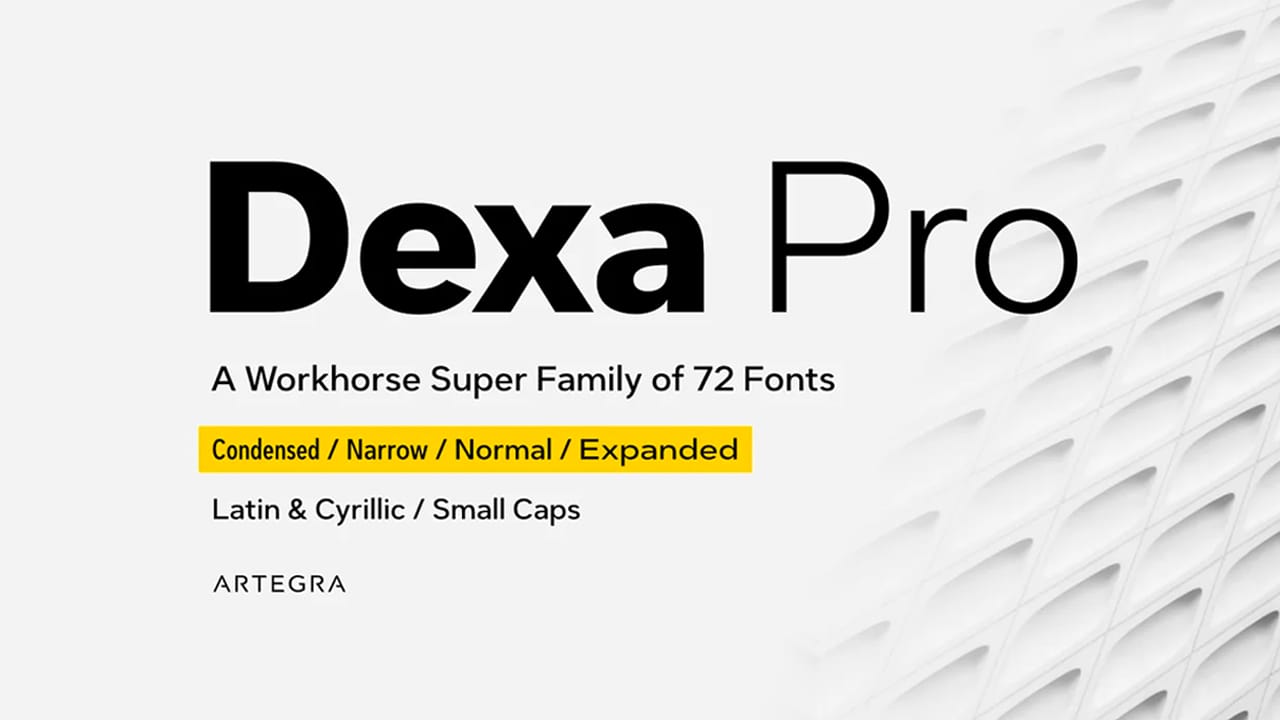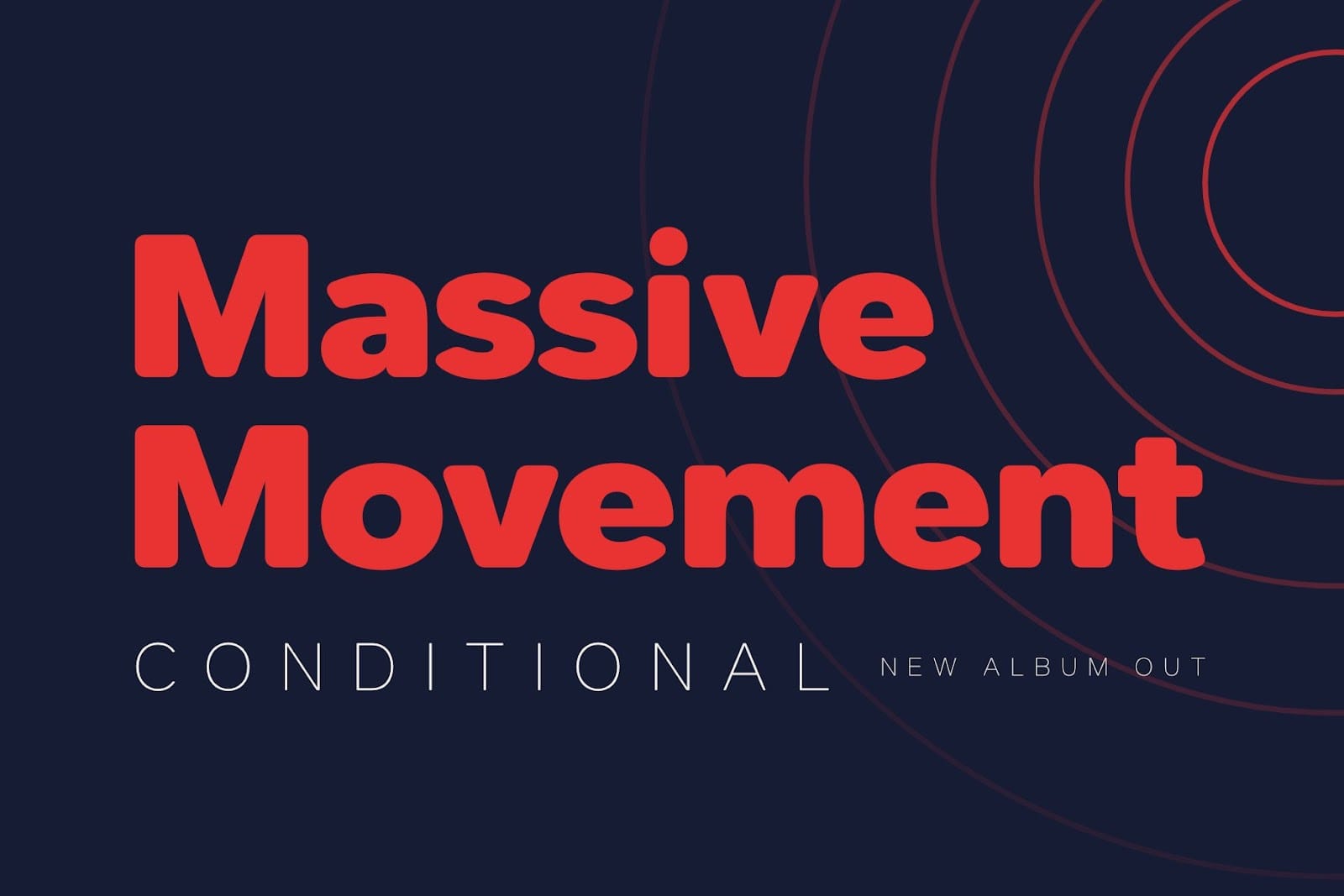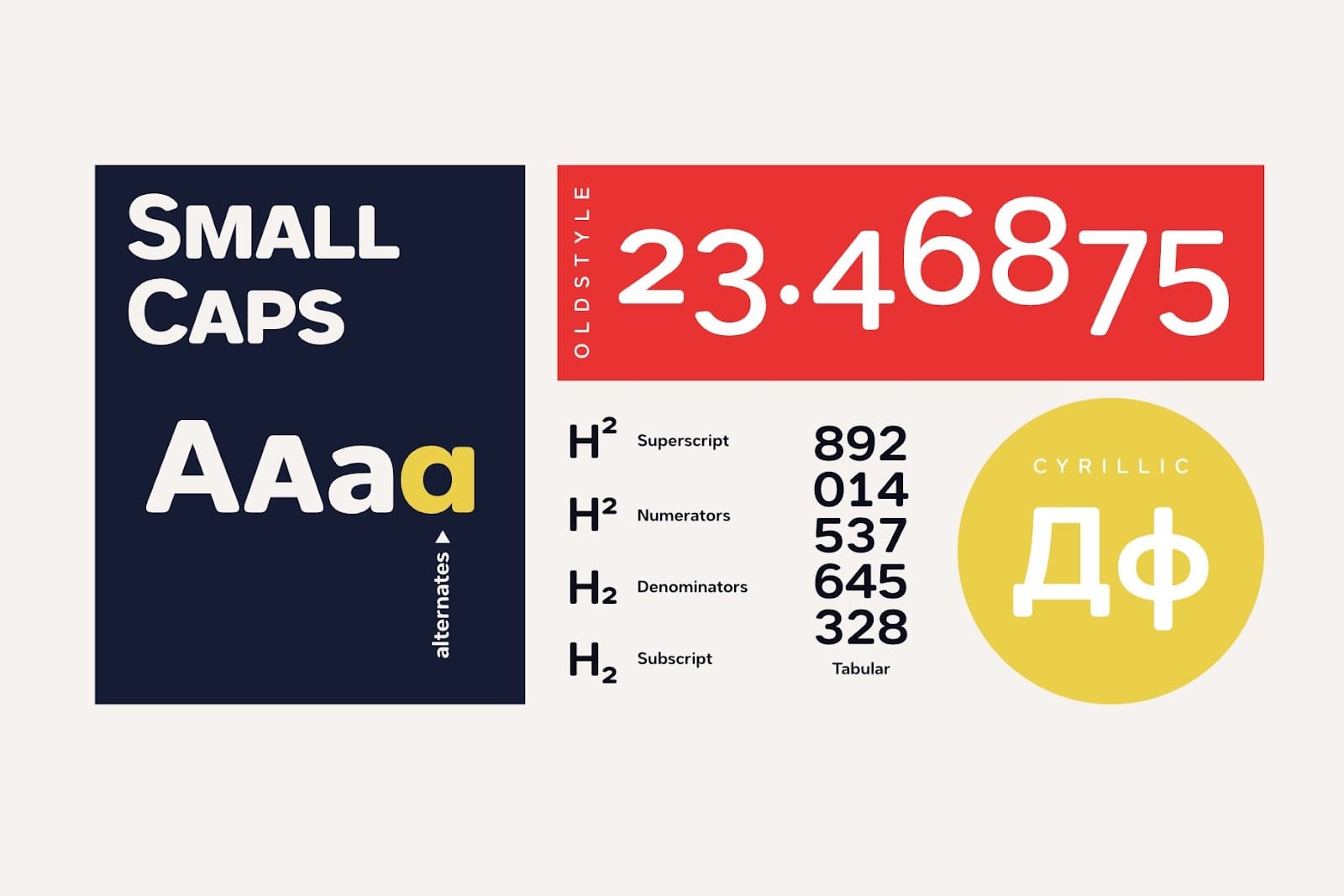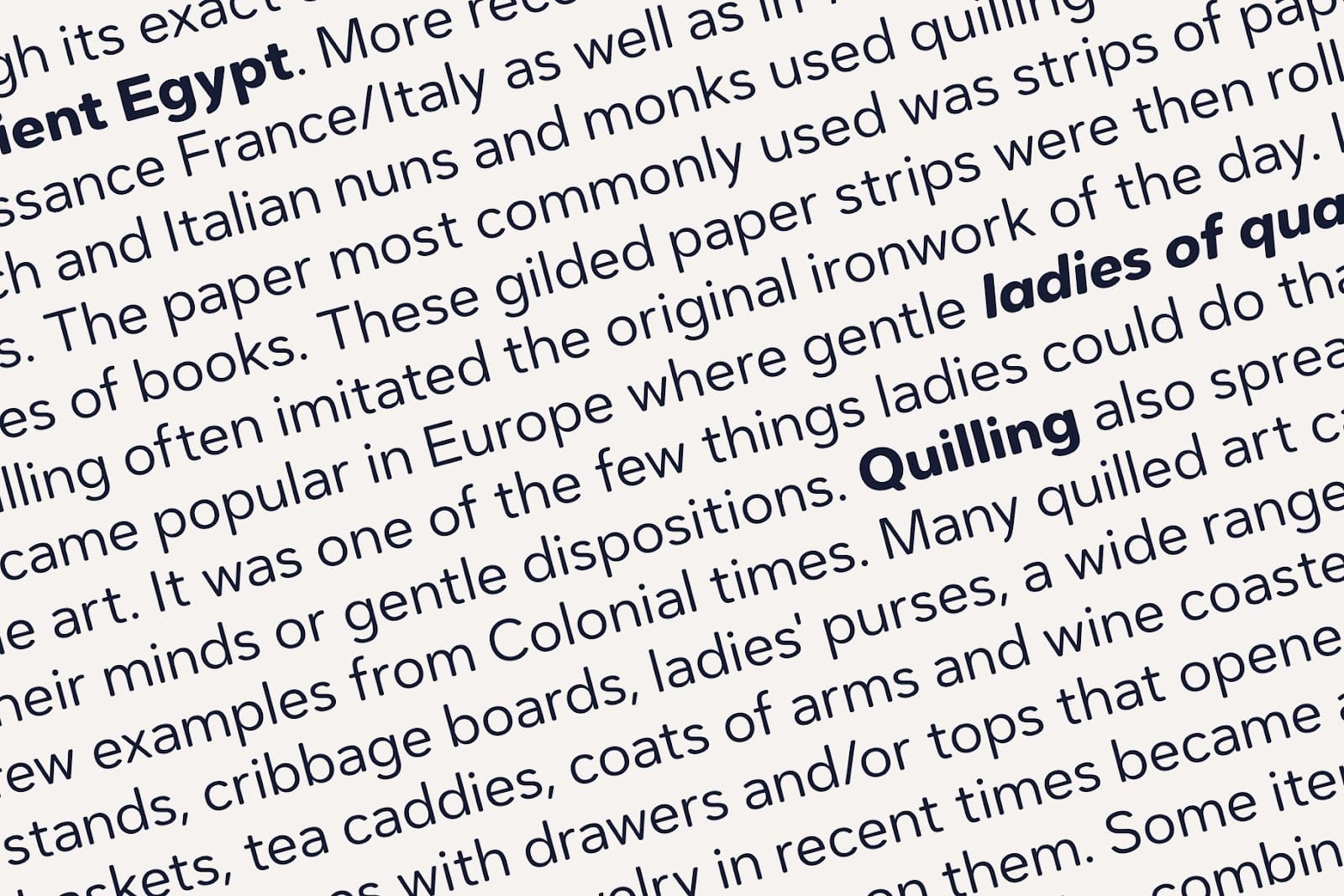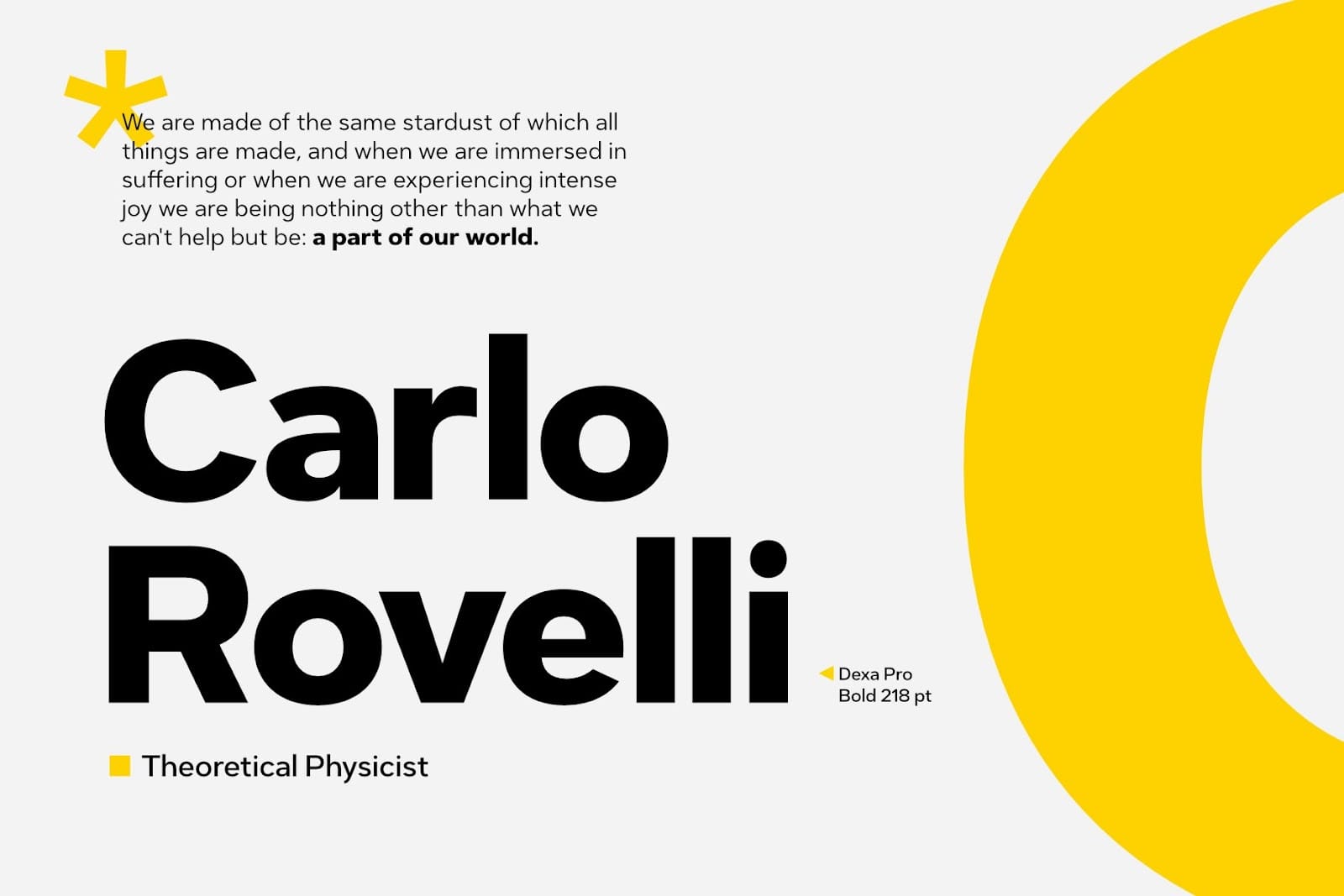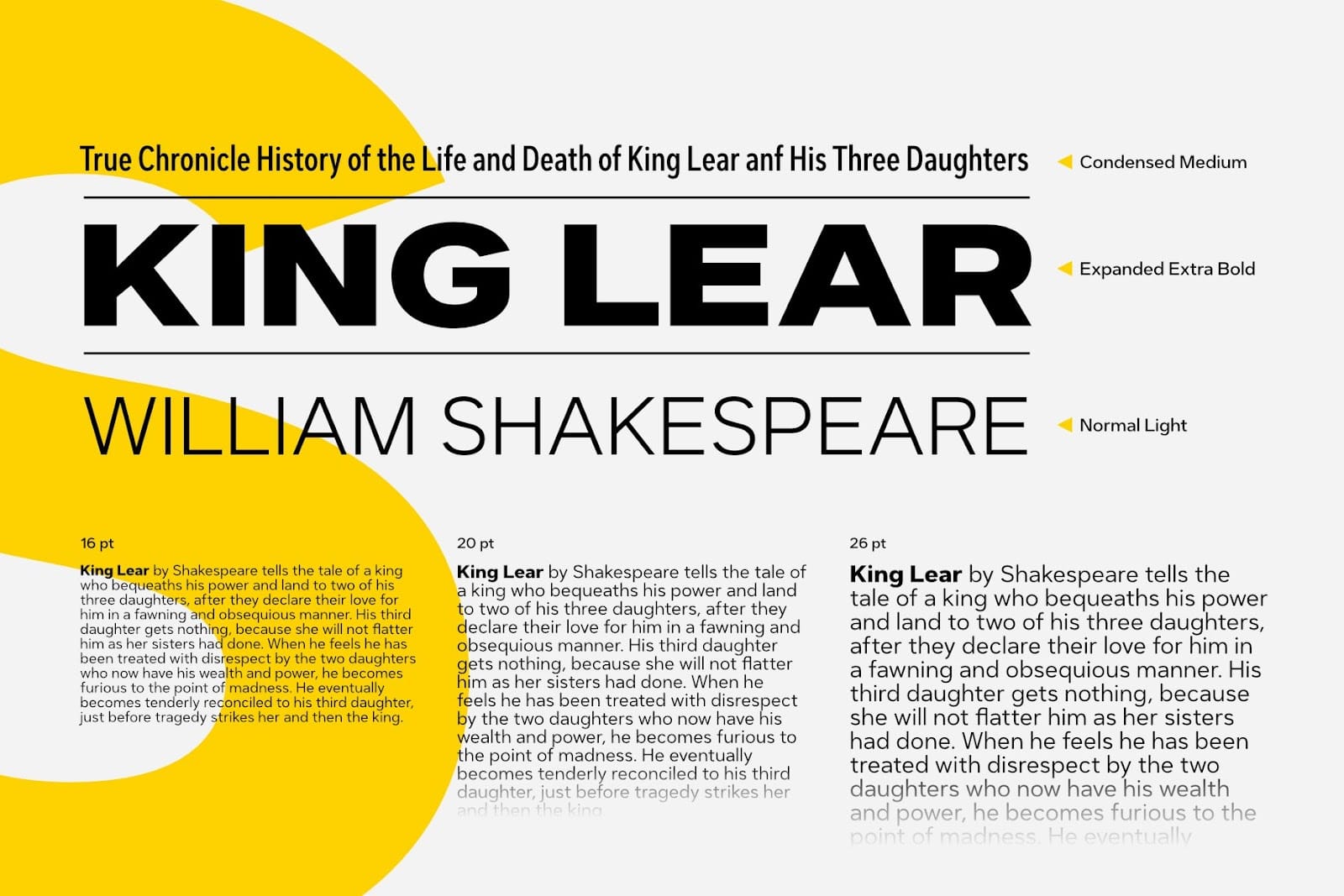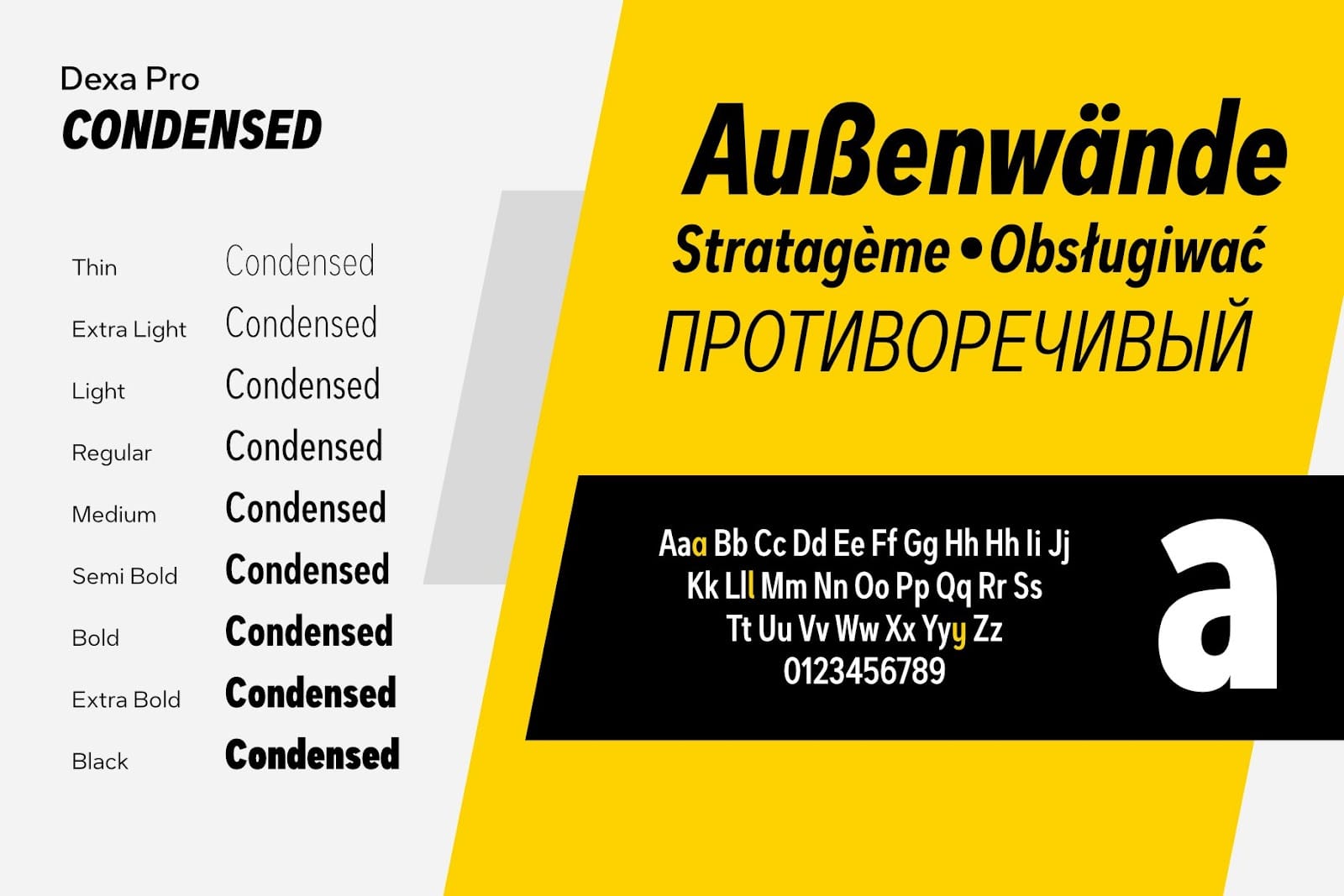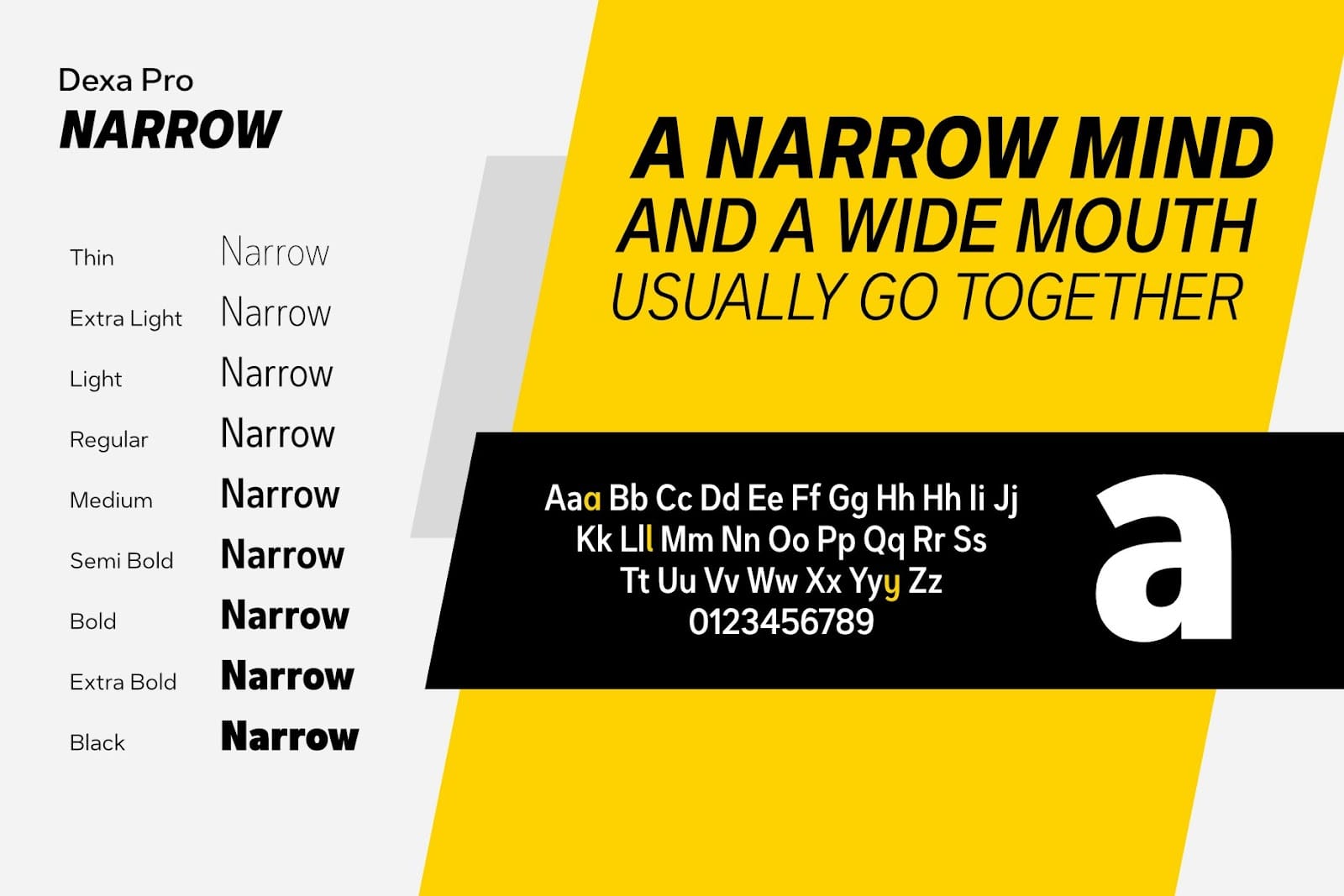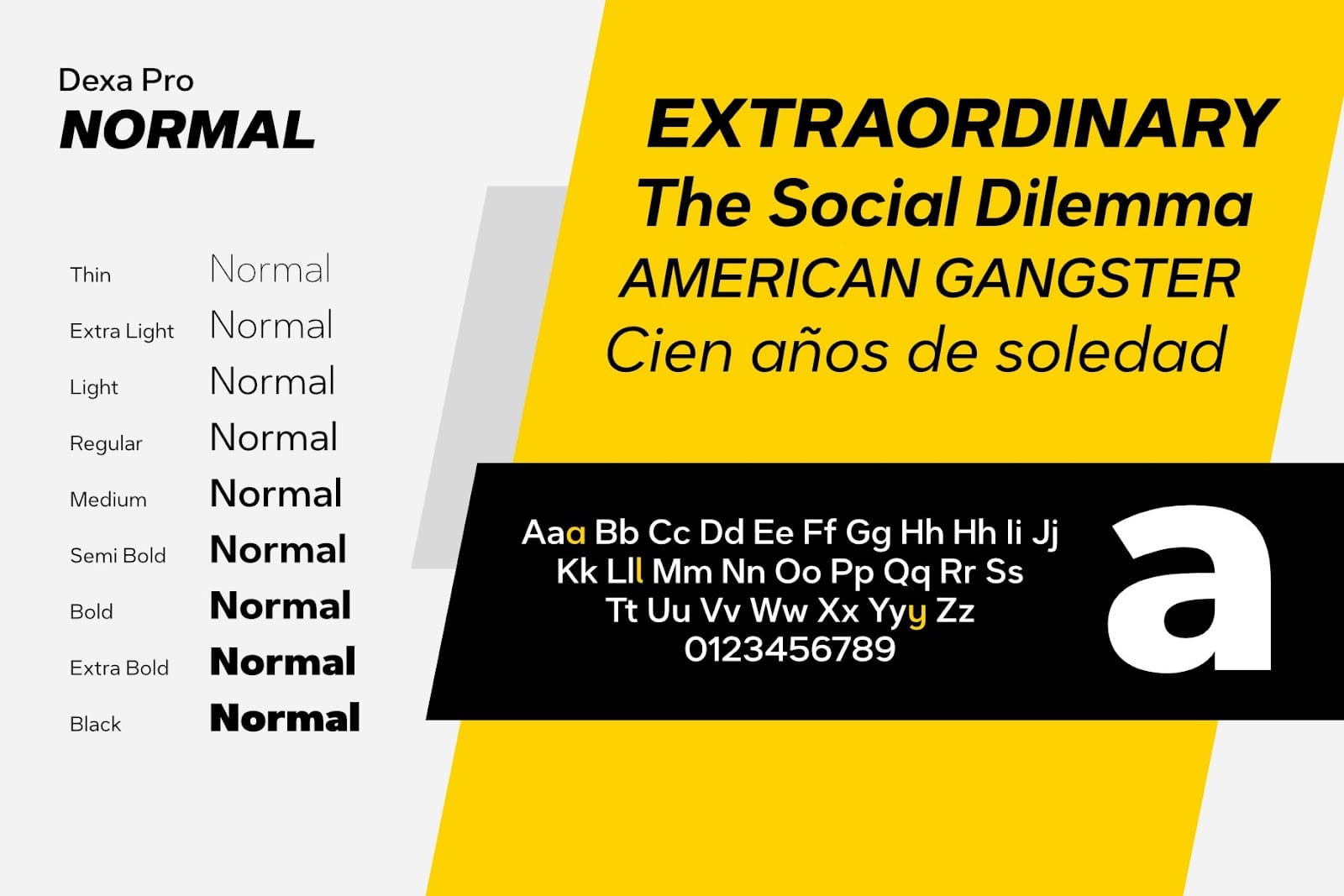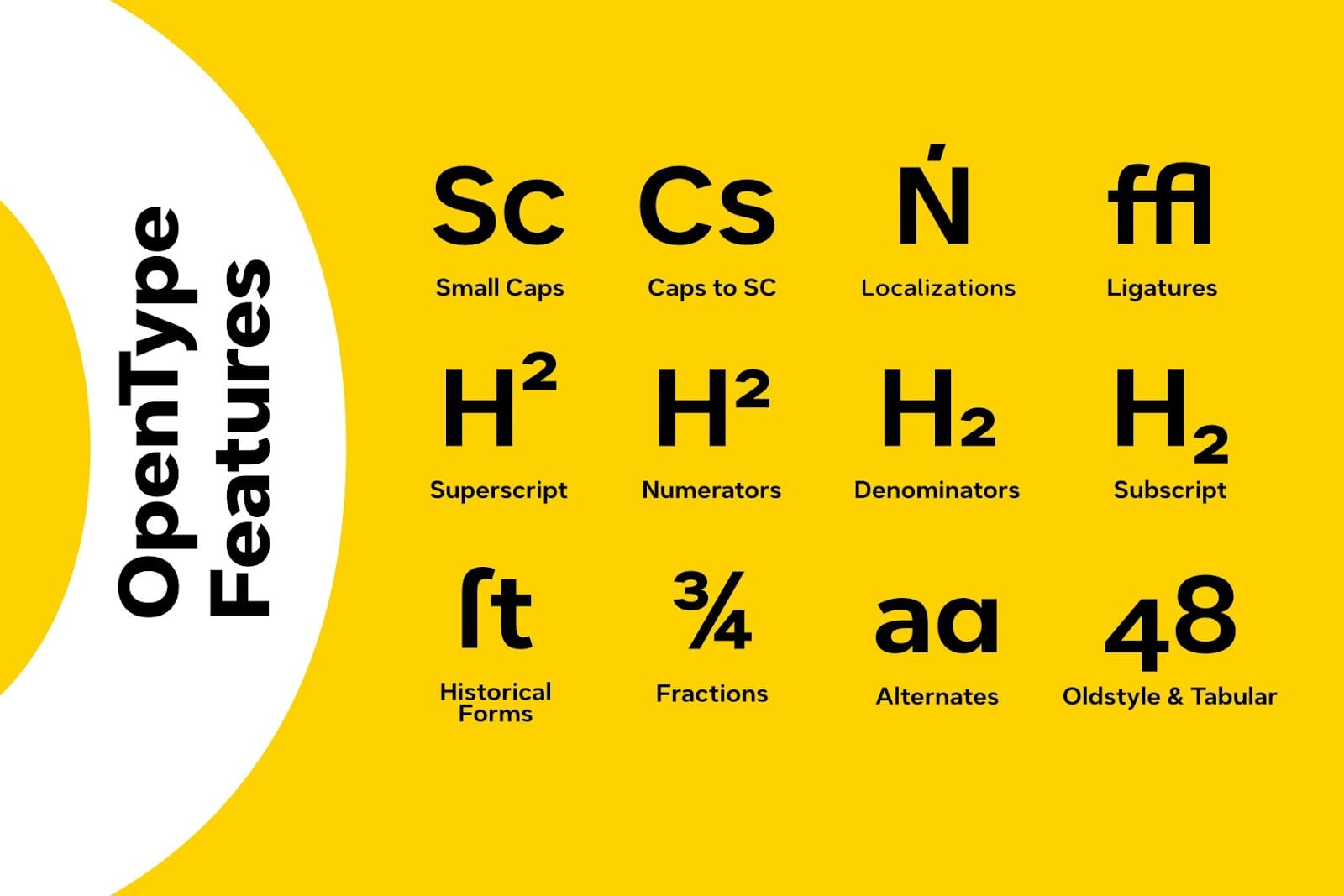
Dexa Round Font Family is the round version of Dexa Pro. The font set includes 18 fonts in weights ranging from thin to black, along with italics. With over 770 glyphs per font.
Dexa Pro Font Family includes 72 fonts in width, narrow, normal and expanded. Each width comes in 18 fonts with weights ranging from thin to black along with their actual italics.
OpenType features: lowercase, uppercase to lowercase, alternative letters, old-fashioned figures, ligatures, uppercase, subscript, denominator, numerator, fraction, denominator, historical form.